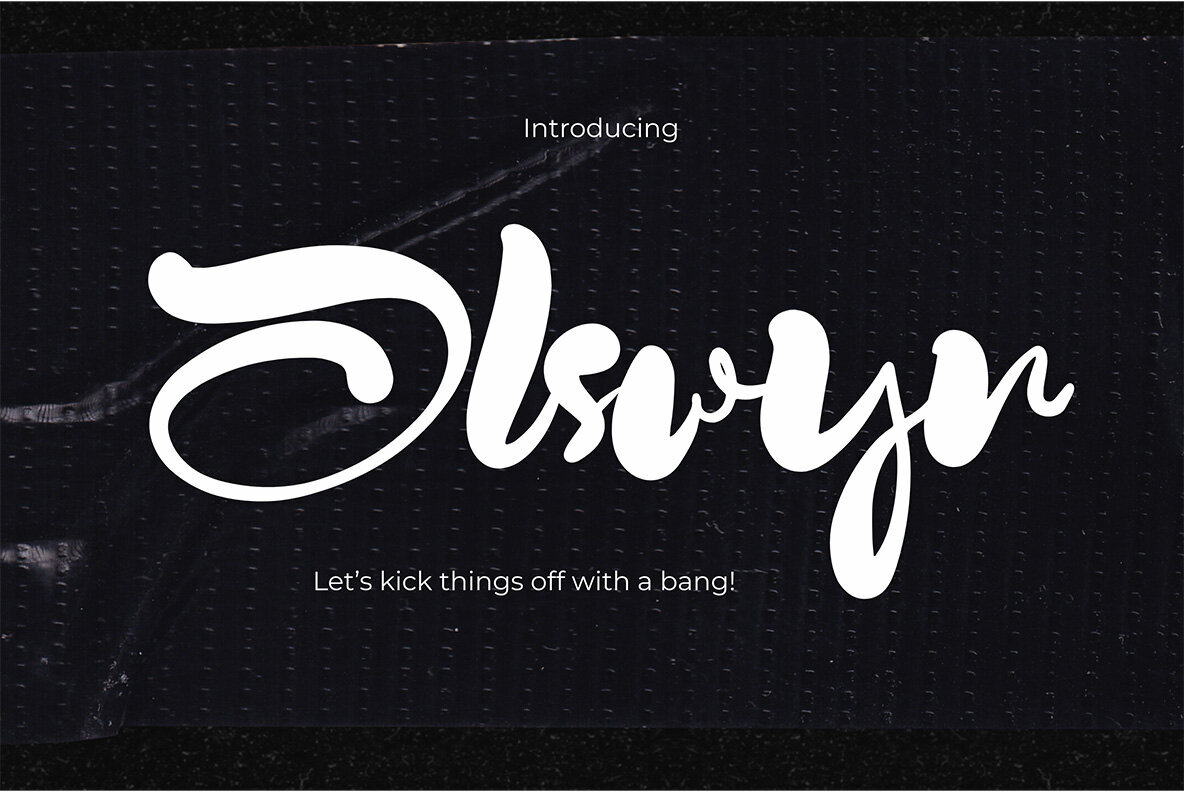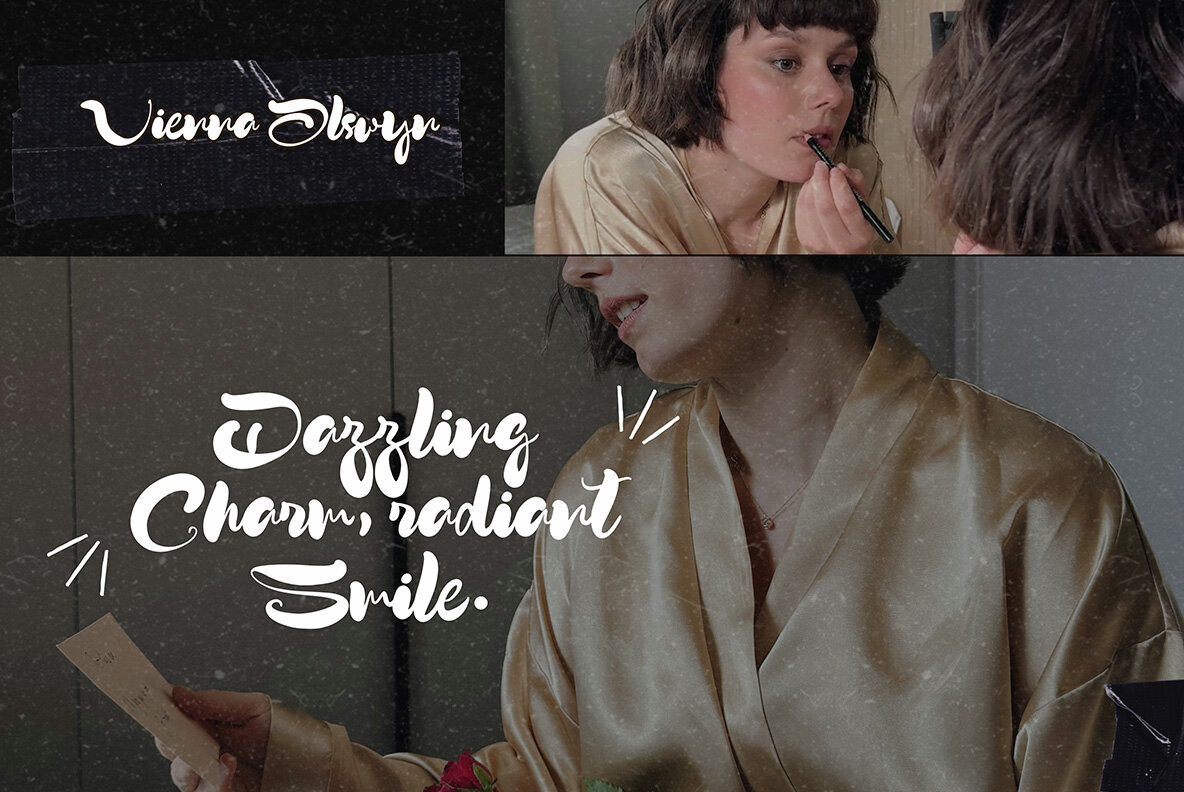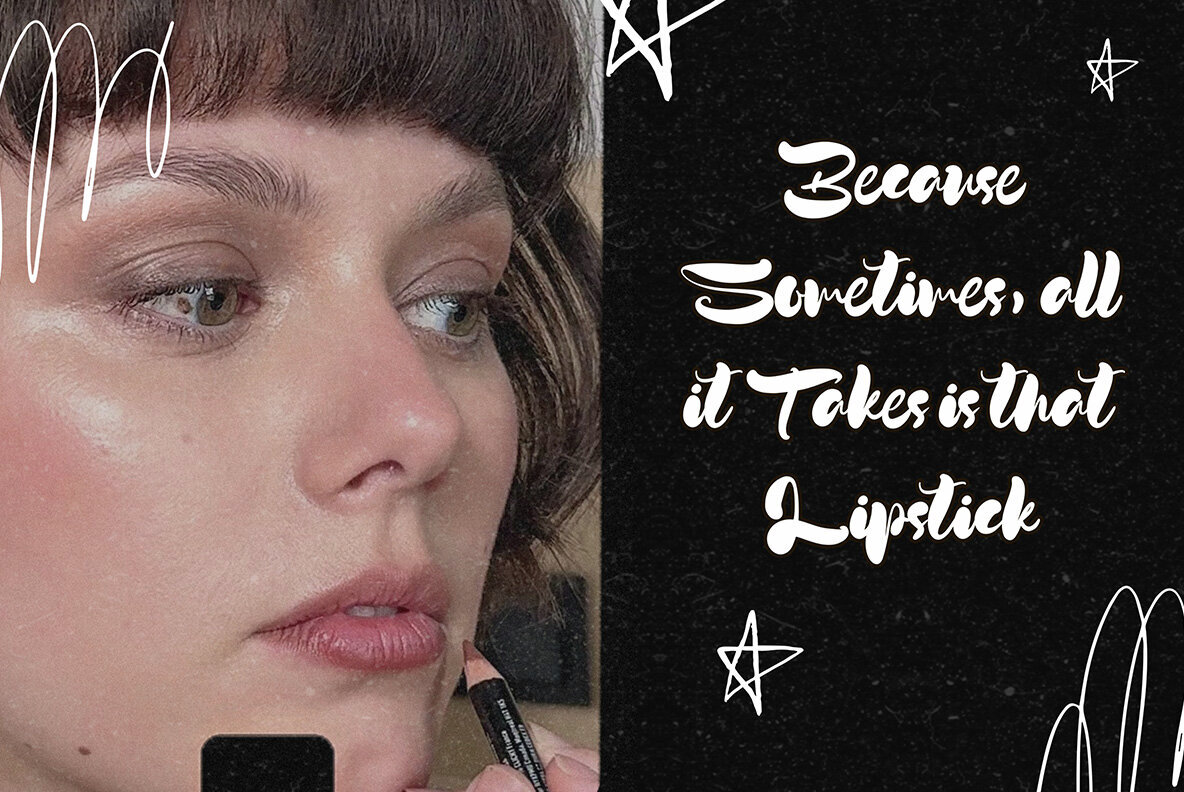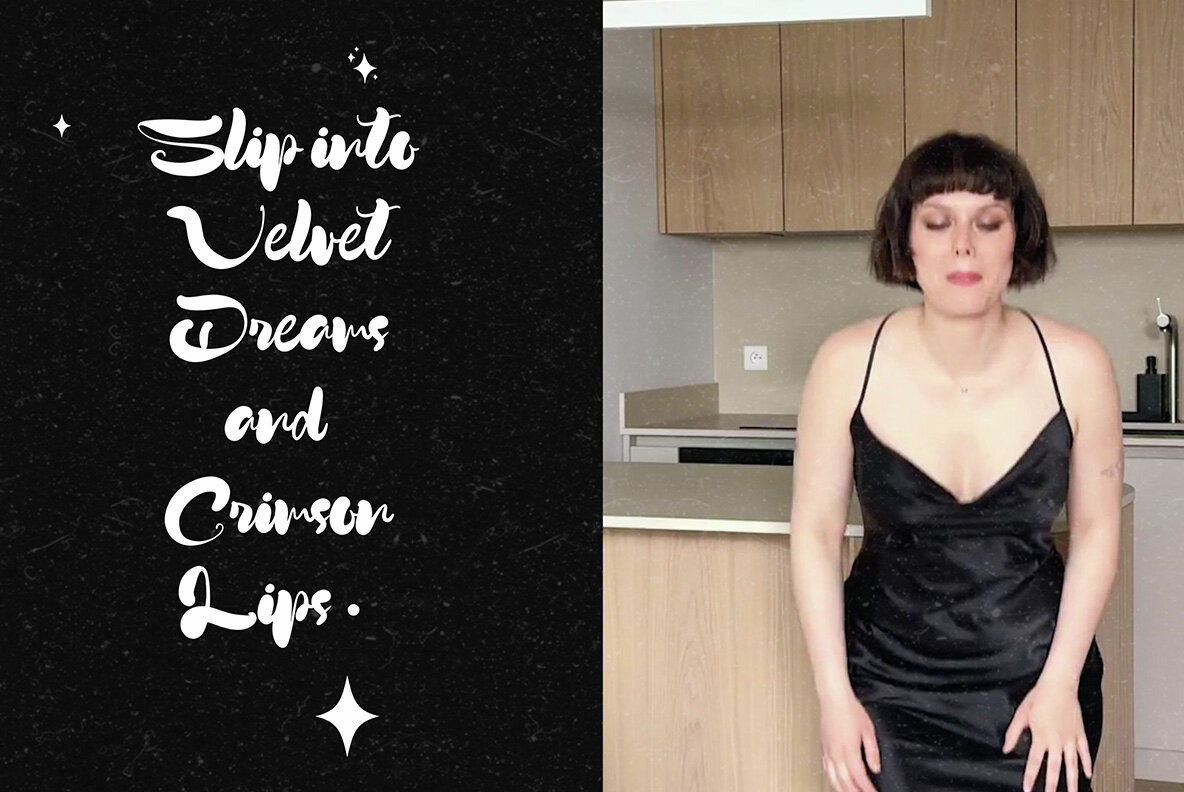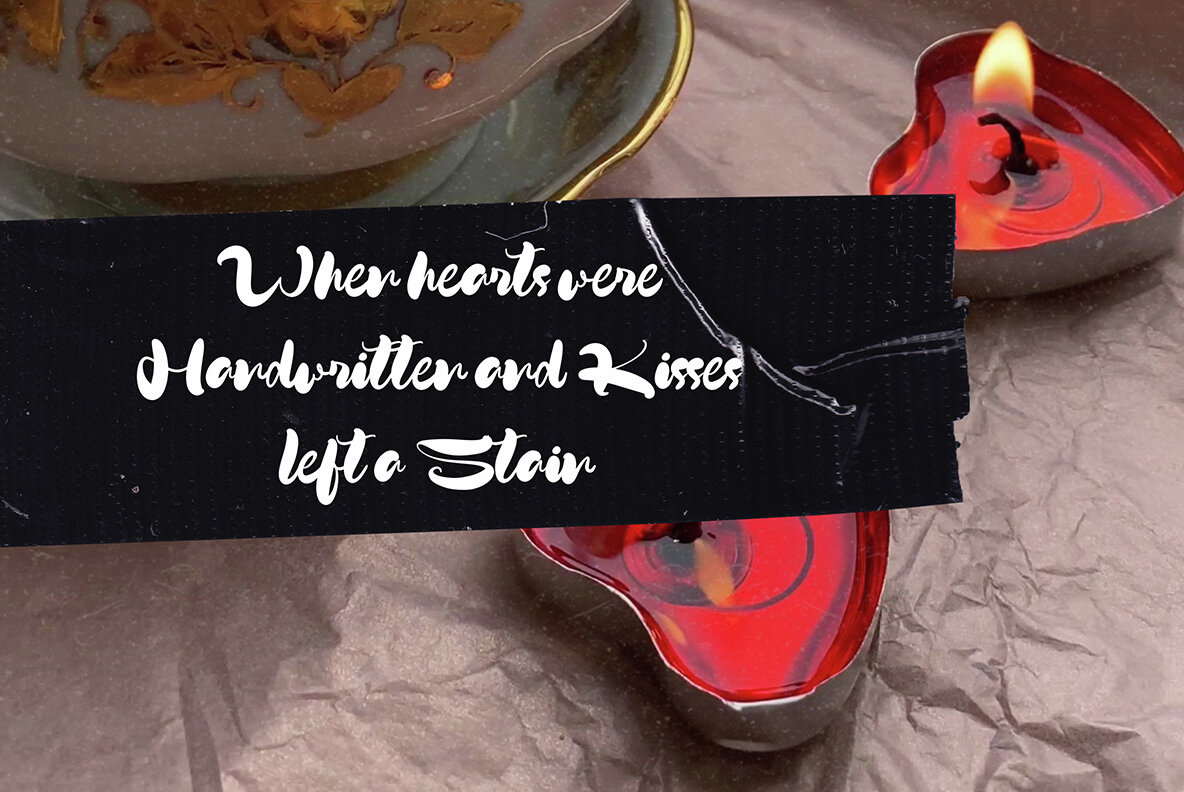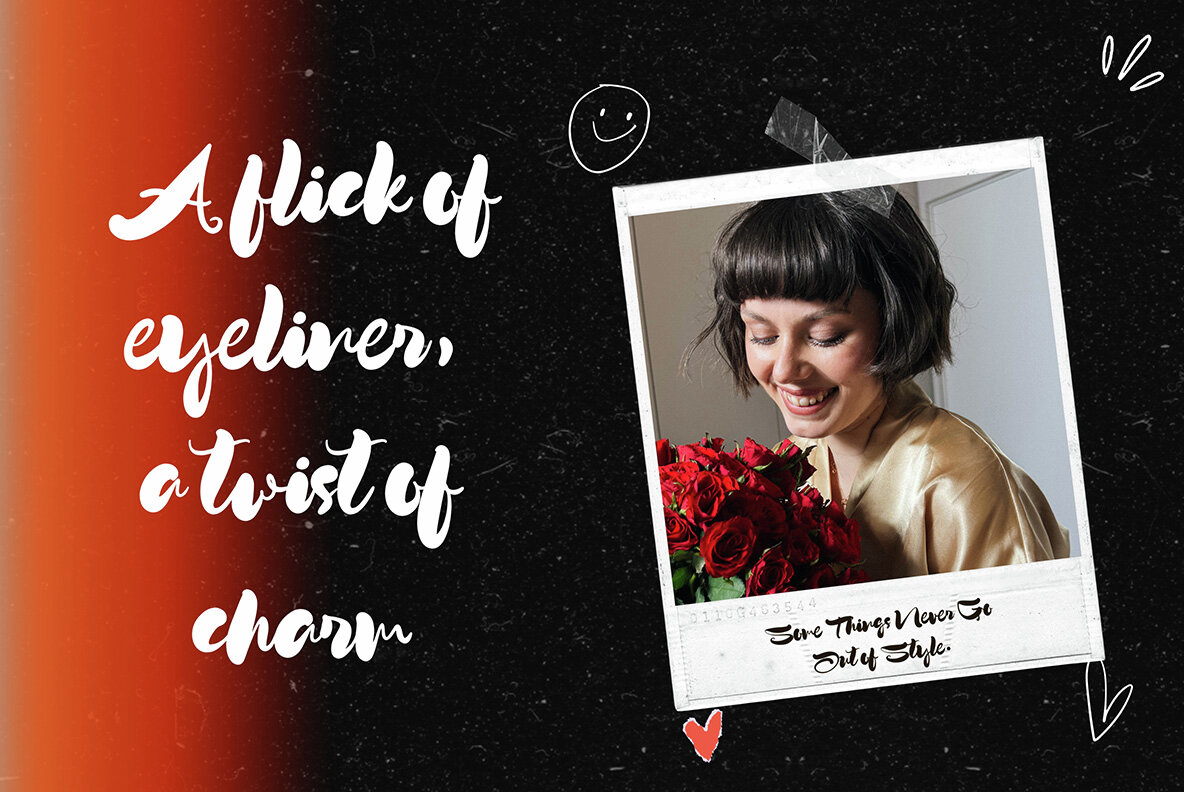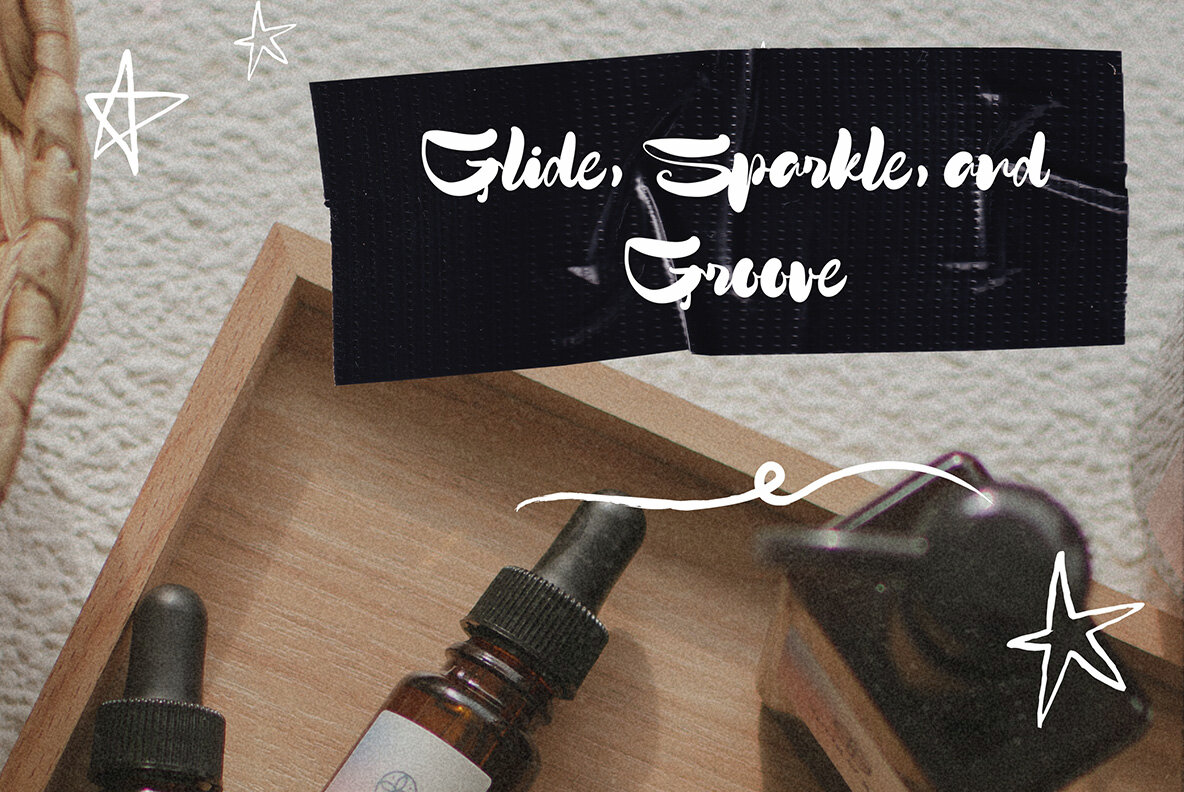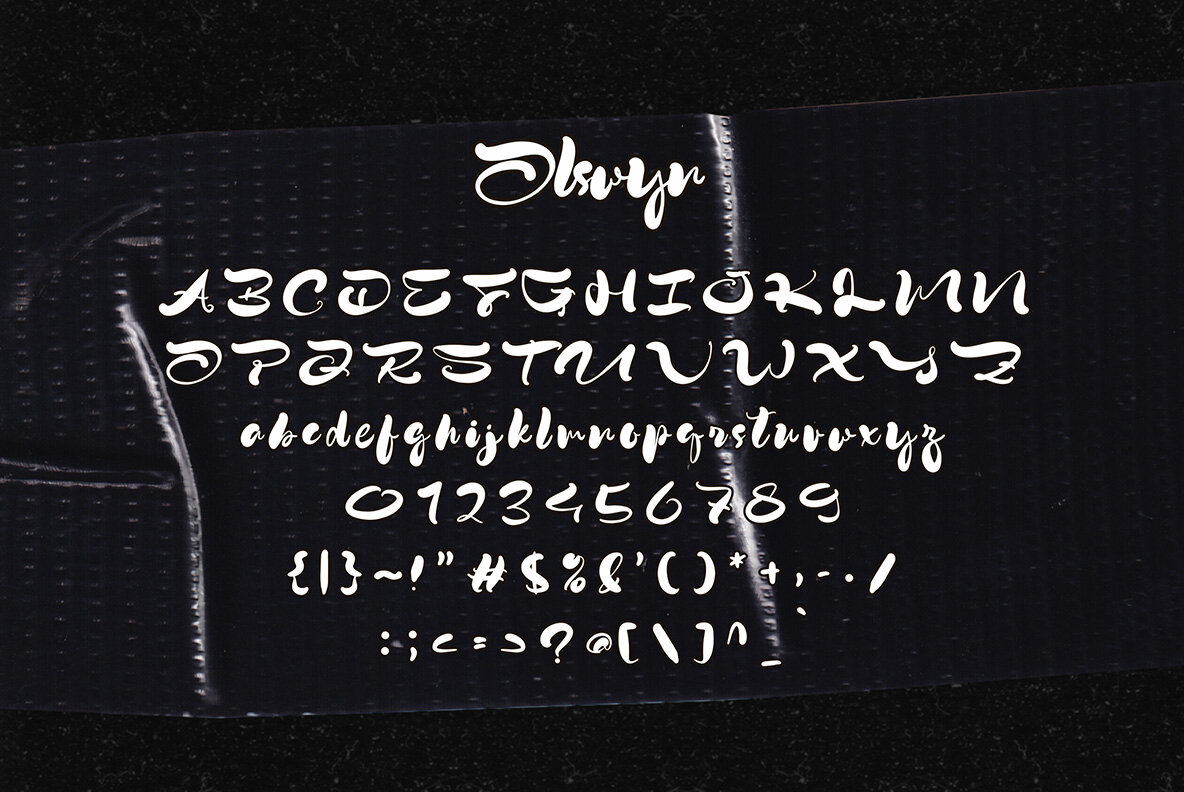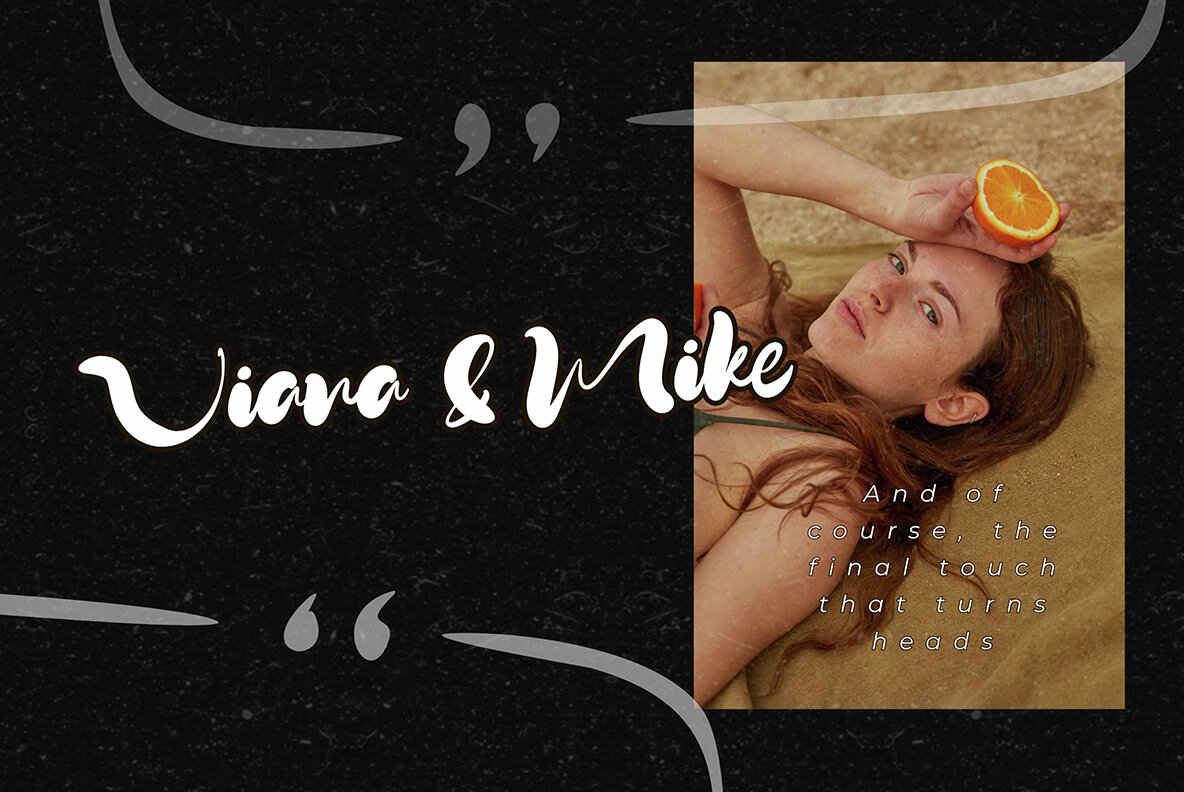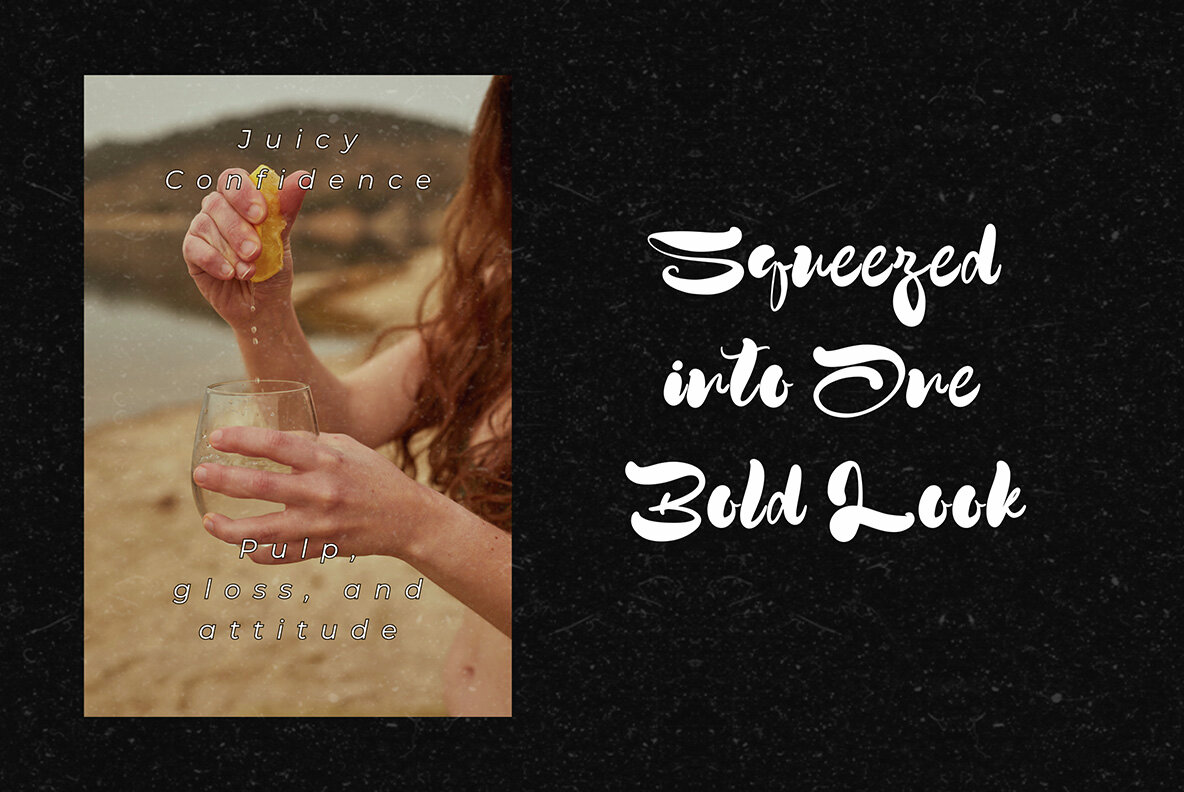
Olswyn Font
Olswyn Regular
Olswyn is a sophisticated script font, combining timeless elegance with a modern flair. Ideal for logos, magazine headlines, and social media graphics, this font introduces a touch of class to any upscale branding endeavor. Its graceful curves transform ordinary text into extraordinary design elements, making Olswyn an invaluable asset for visually striking projects. With Olswyn, enjoy the perfect balance of style and versatility, and create designs that resonate with charm and precision.Olswyn Script Font: Elegance in Typography